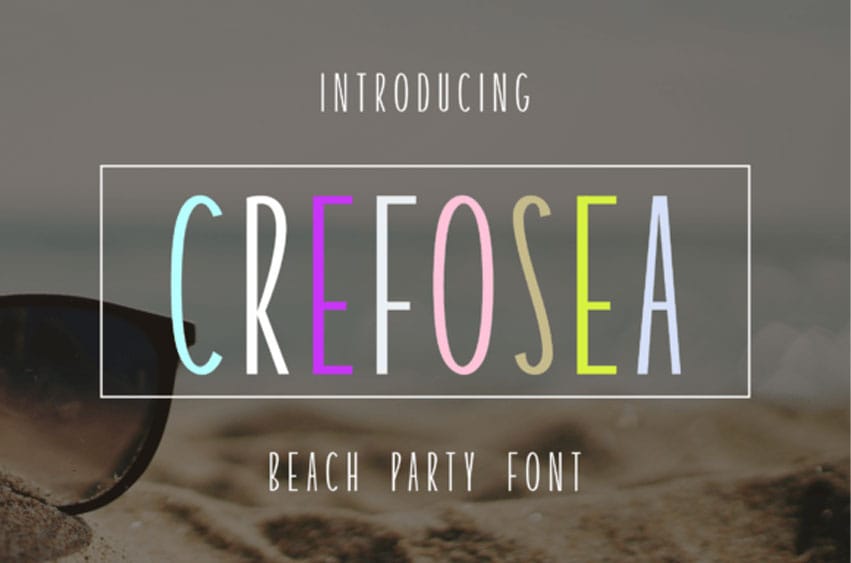
Crefosea Font collection curated with the echoes of seashore escapades and coastal allure. Ideal for imprinting holiday wishes, ‘Beach Bliss’ stands as a charming element in naturalistic photo shoots or adding an artistic touch to your hashtag photos from breathtaking temple visits and cherished instants.